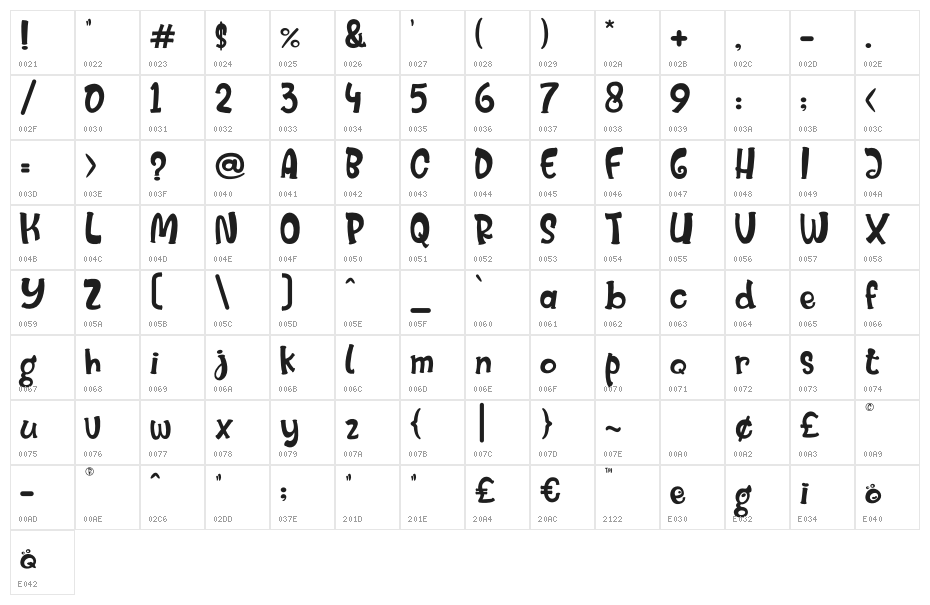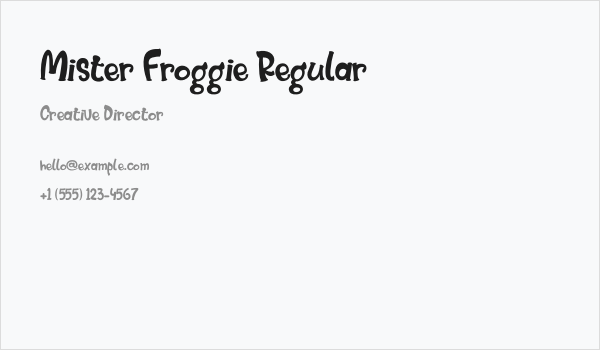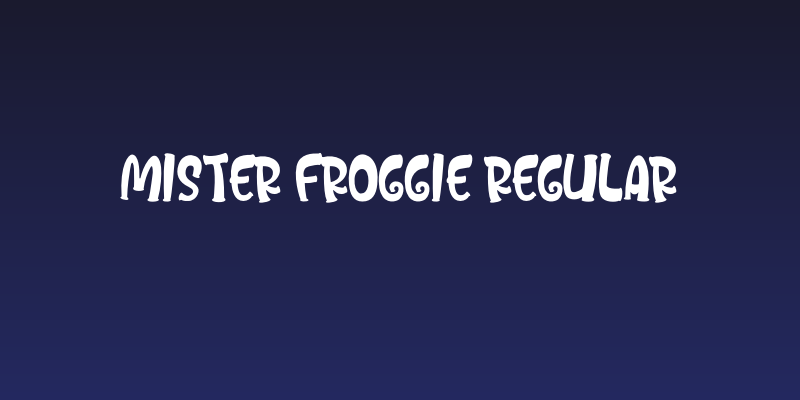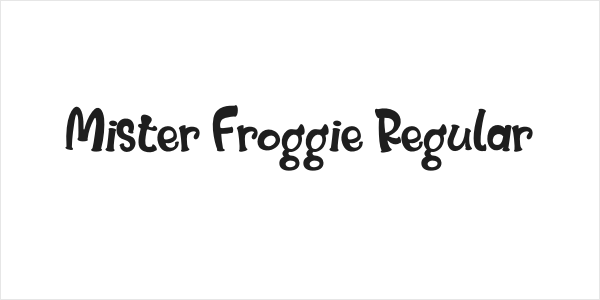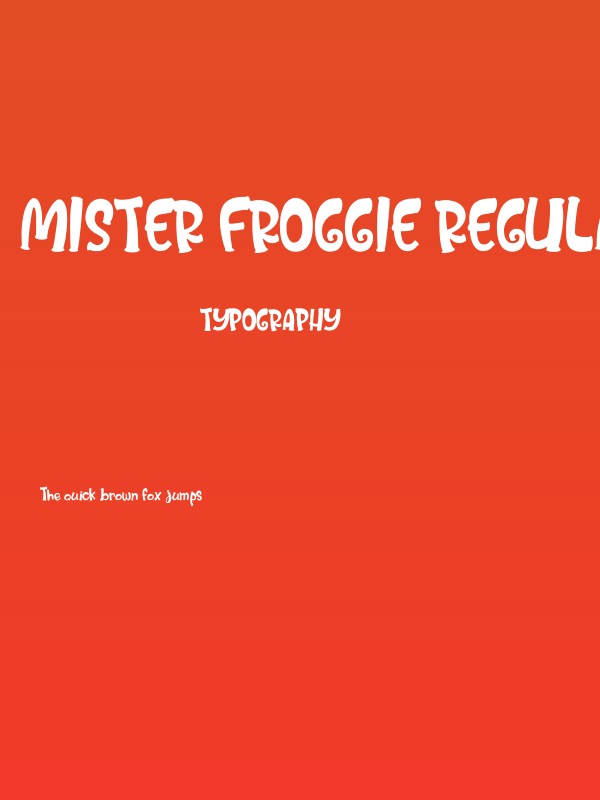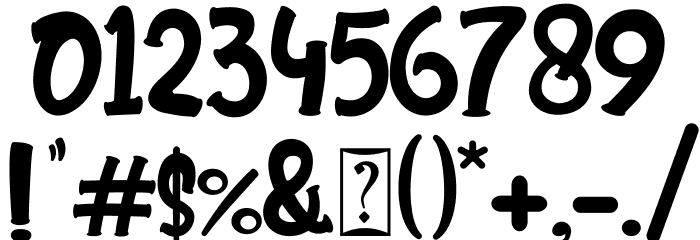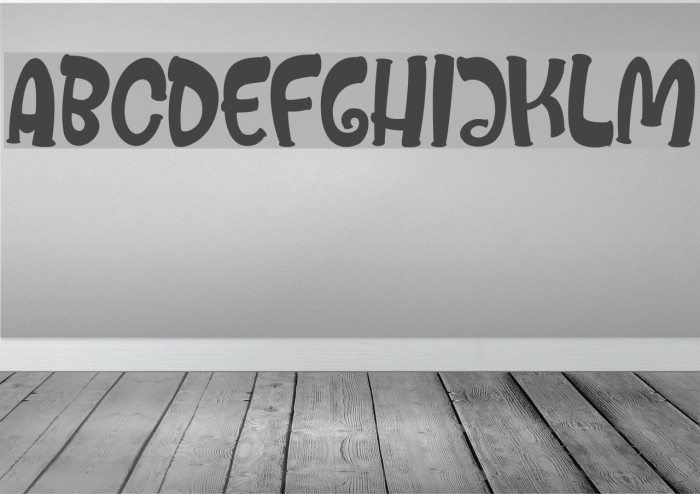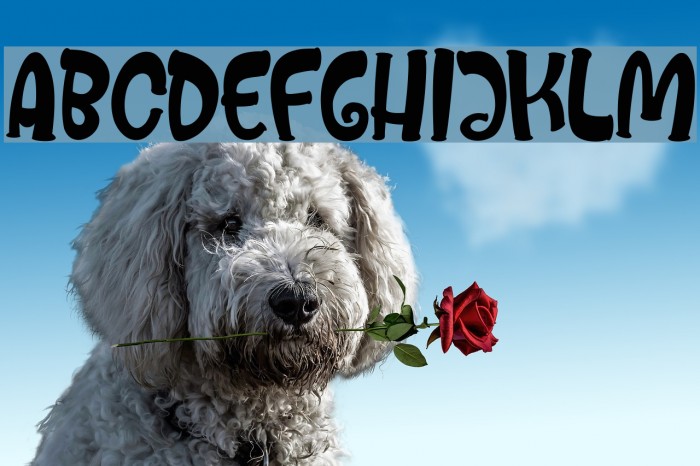
Mister Froggie Regular Font
Mister Froggie Regular Description
This playful and whimsical font features a bold, cartoonish style with exaggerated curves and a lively personality. The characters are rounded and have a hand-drawn appearance, giving them a friendly and approachable feel. The uppercase letters are particularly distinctive, with some incorporating unique swirls and loops that add to the font's charm. The lowercase letters maintain the same playful aesthetic, ensuring consistency throughout. Numbers and special characters are equally expressive, making this font suitable for creative and fun projects.